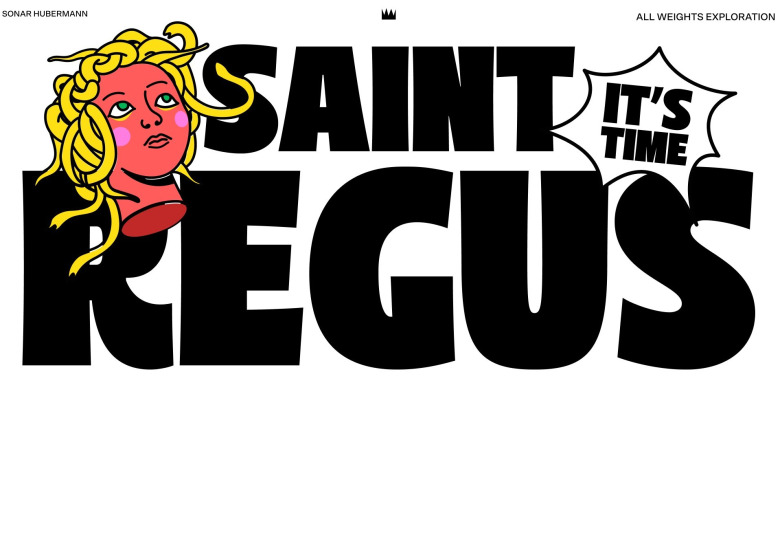
Saint Regus Font
Saint Regus Font is a bold sans serif Typeface created by Sonar Hubermann with a raw aesthetic and solid industrial style. Its still growing and growing by uniquely bold charismatic persona. The family itself have total 8148 glyphs with a standard glyphs and multilingual context.The possibilities are have a huge prospect in various design project, digital and print. SaintRegus development tried to explore the impact by its proportional display form.